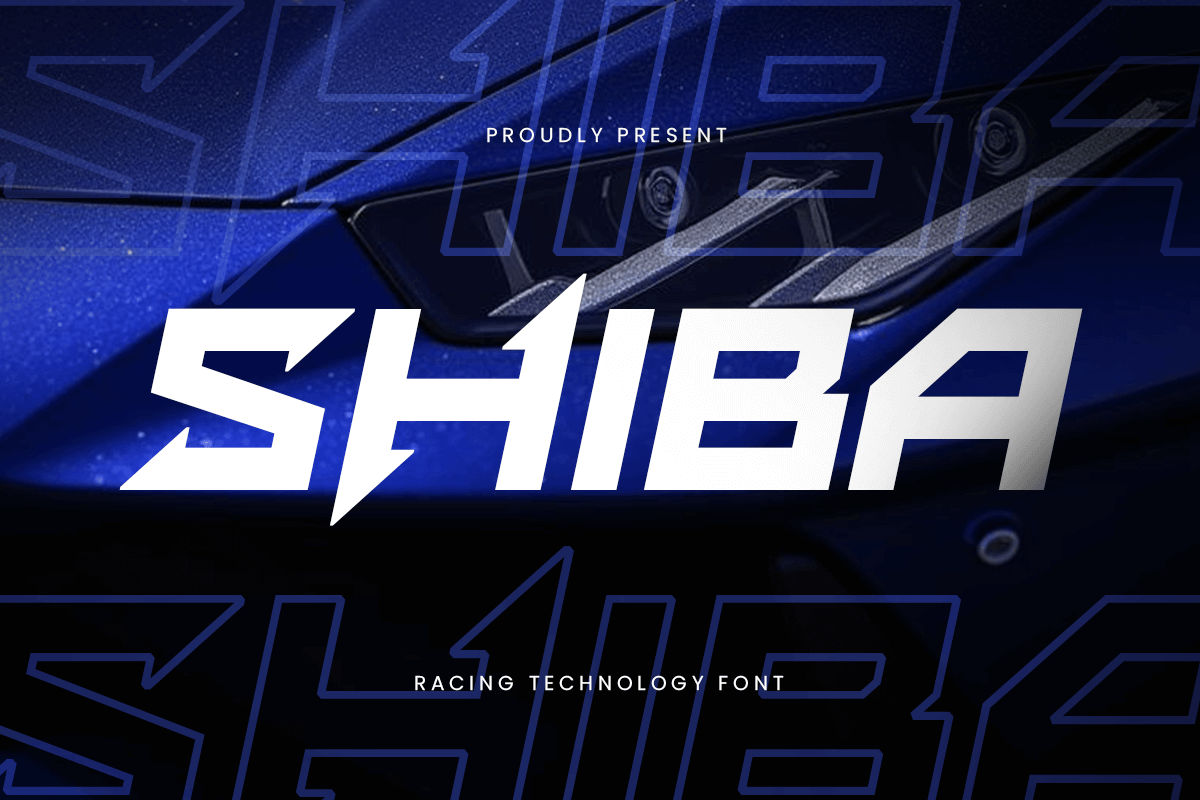
SHIBA
-Racing Technology Font
SHIBA - Racing Technology Font
SHIBA is a bold and dynamic racing font designed for high-speed performance and futuristic technology. With its sharp angles, aerodynamic letterforms, and tech-inspired details, this font is perfect for motorsports branding, esports teams, automotive advertisements, and cutting-edge tech products.
Its sleek and aggressive design embodies speed, power, and precision, making it an ideal choice for racing logos, gaming interfaces, digital dashboards, and sci-fi movie titles. Whether you're crafting a futuristic brand identity, a high-energy sports poster, or a cyber-inspired design, SHIBA Font delivers impact and style.
Dominate the competition with SHIBA Font, a font built for speed and innovation.
SHIBA Font - Racing Technology Font Features:
• Bold, high-speed, and futuristic letterforms
• Ideal for motorsports, gaming, and tech branding
• Punctuation, numbers, and symbols included
• Uppercase and lowercase letters
• Ready with Regular, Outline, Italic for Both
• Alternate Characters for advanced customization
Unleash power and precision with SHIBA Font—the ultimate racing and technology font for high-speed designs.
Drive the future with style and speed! 🏁🚀